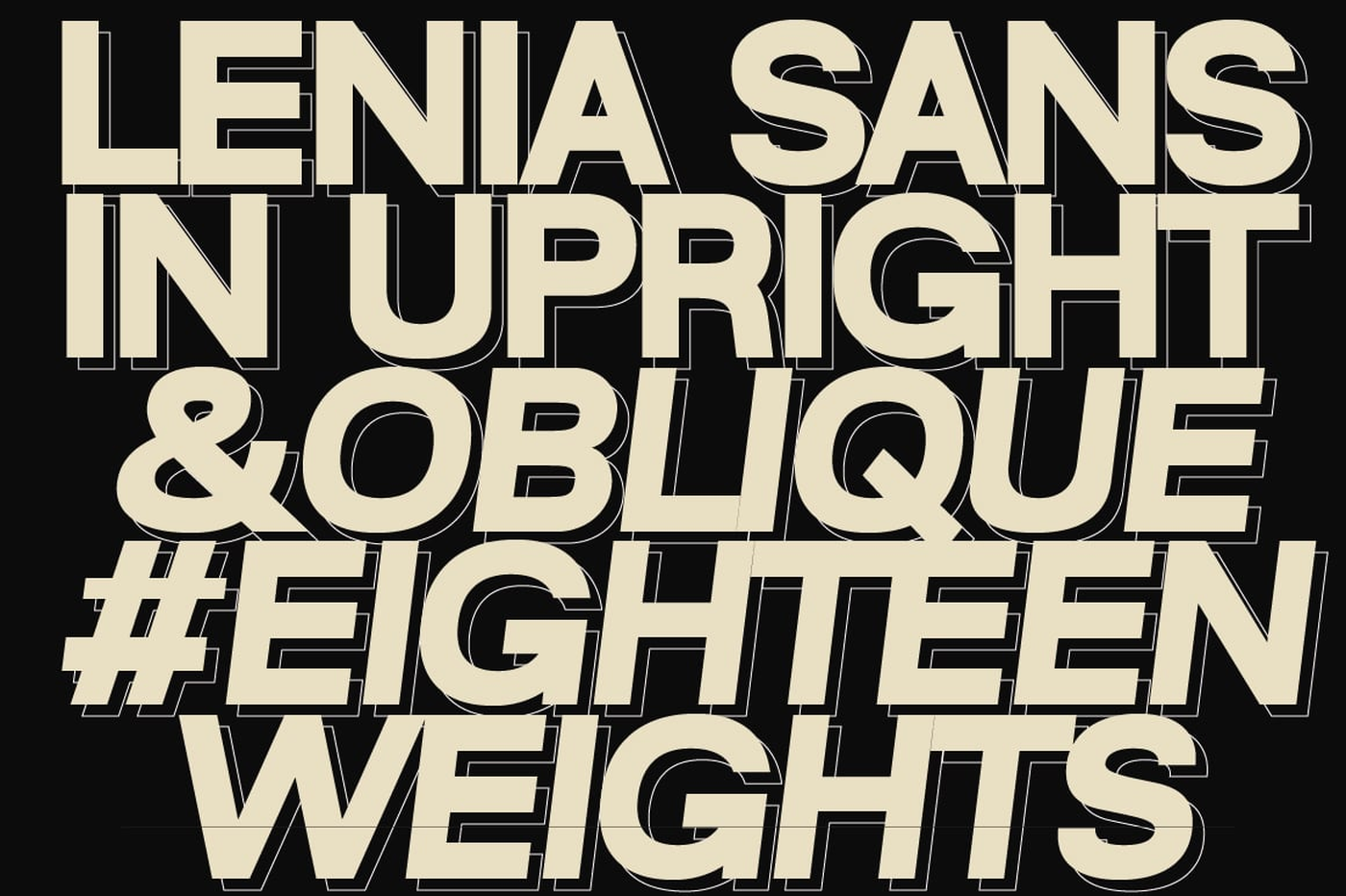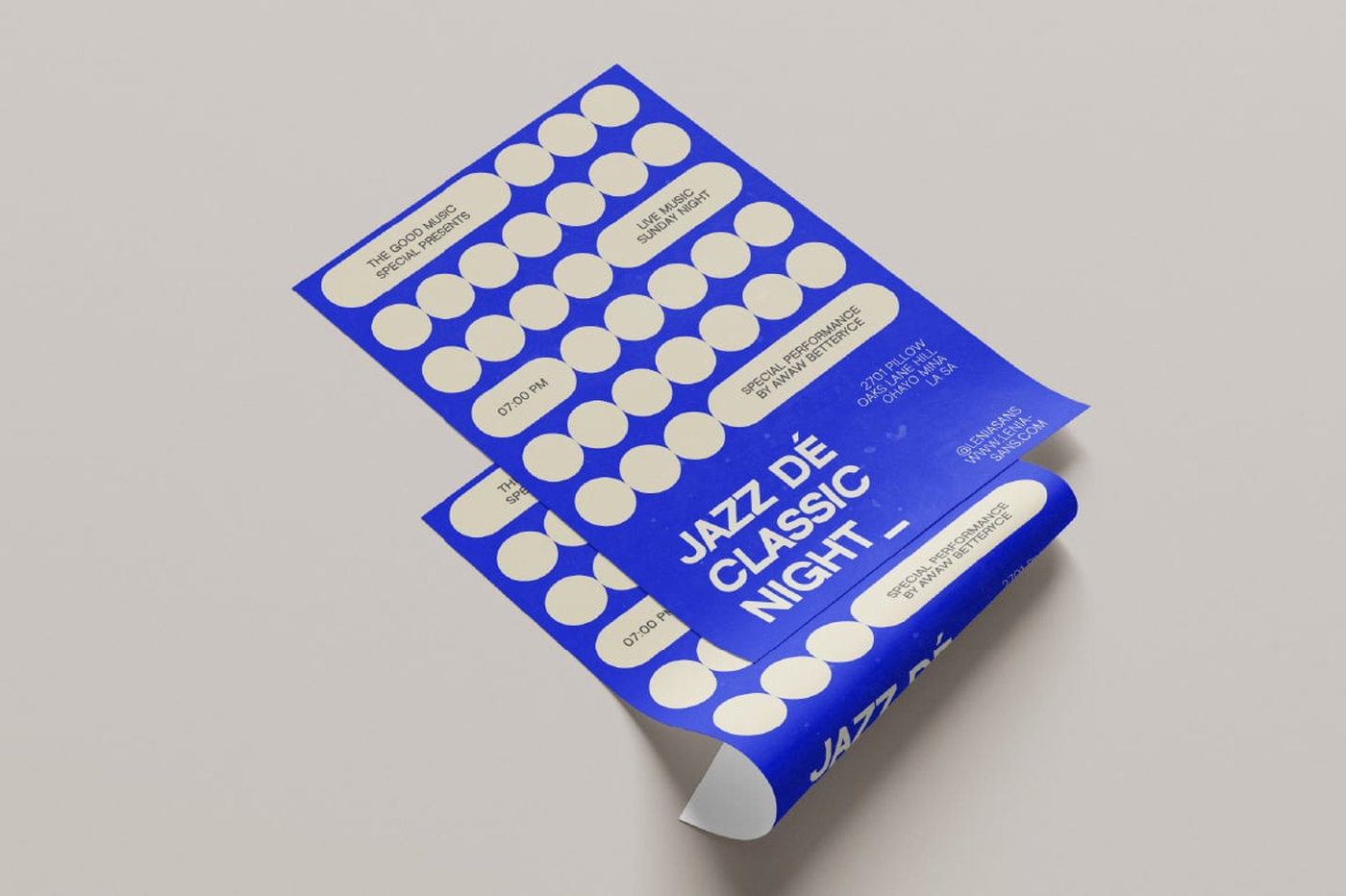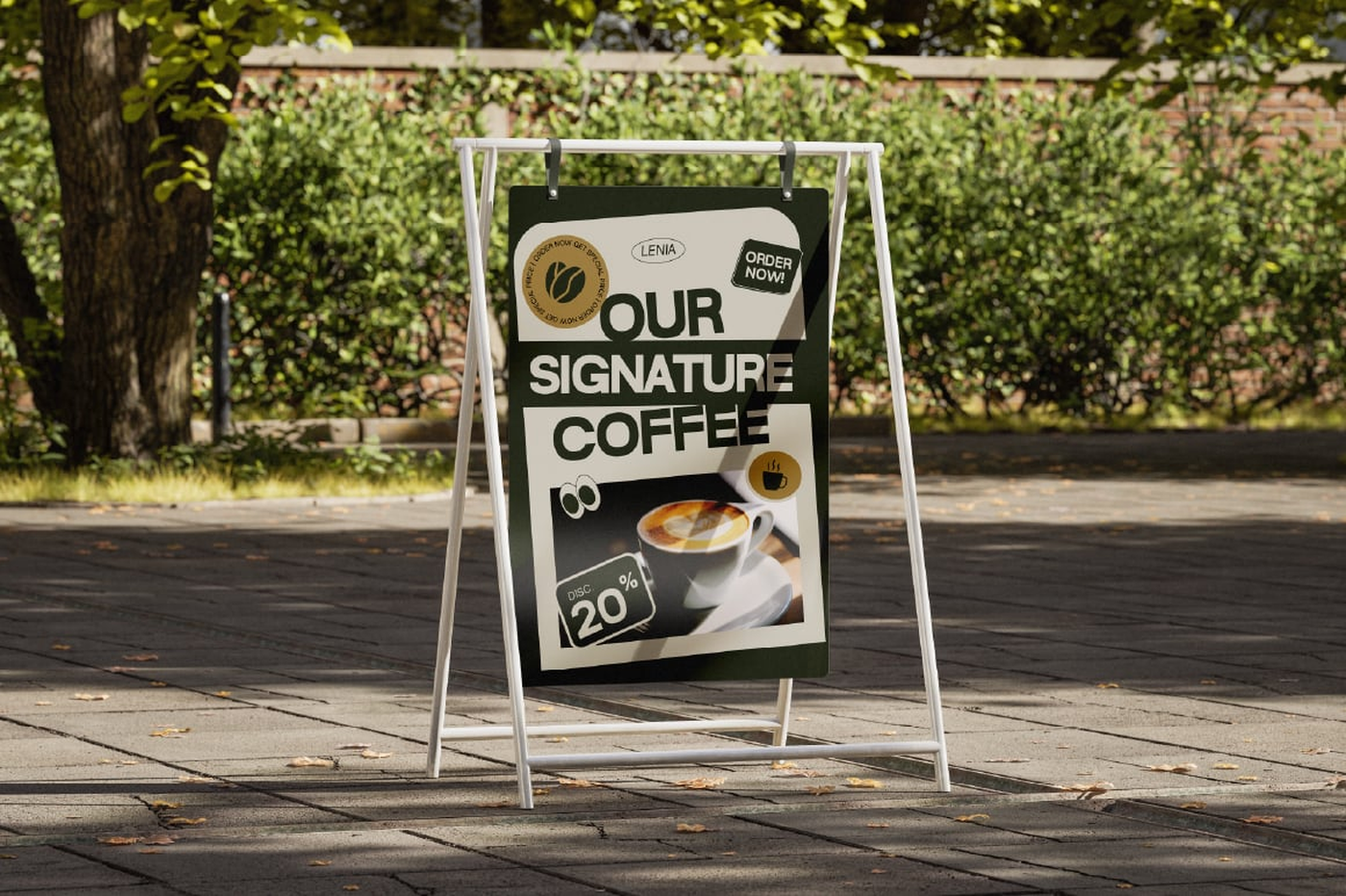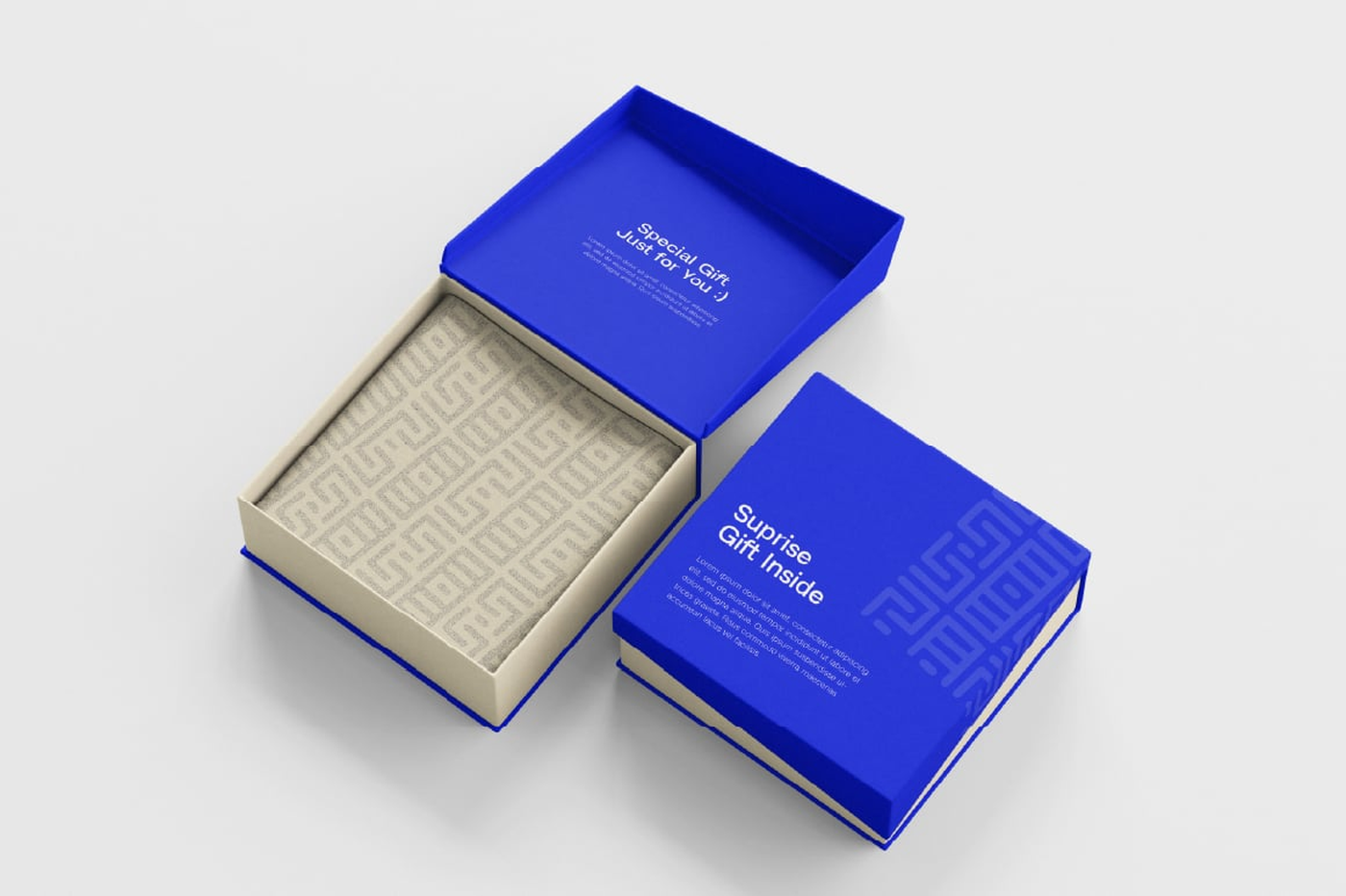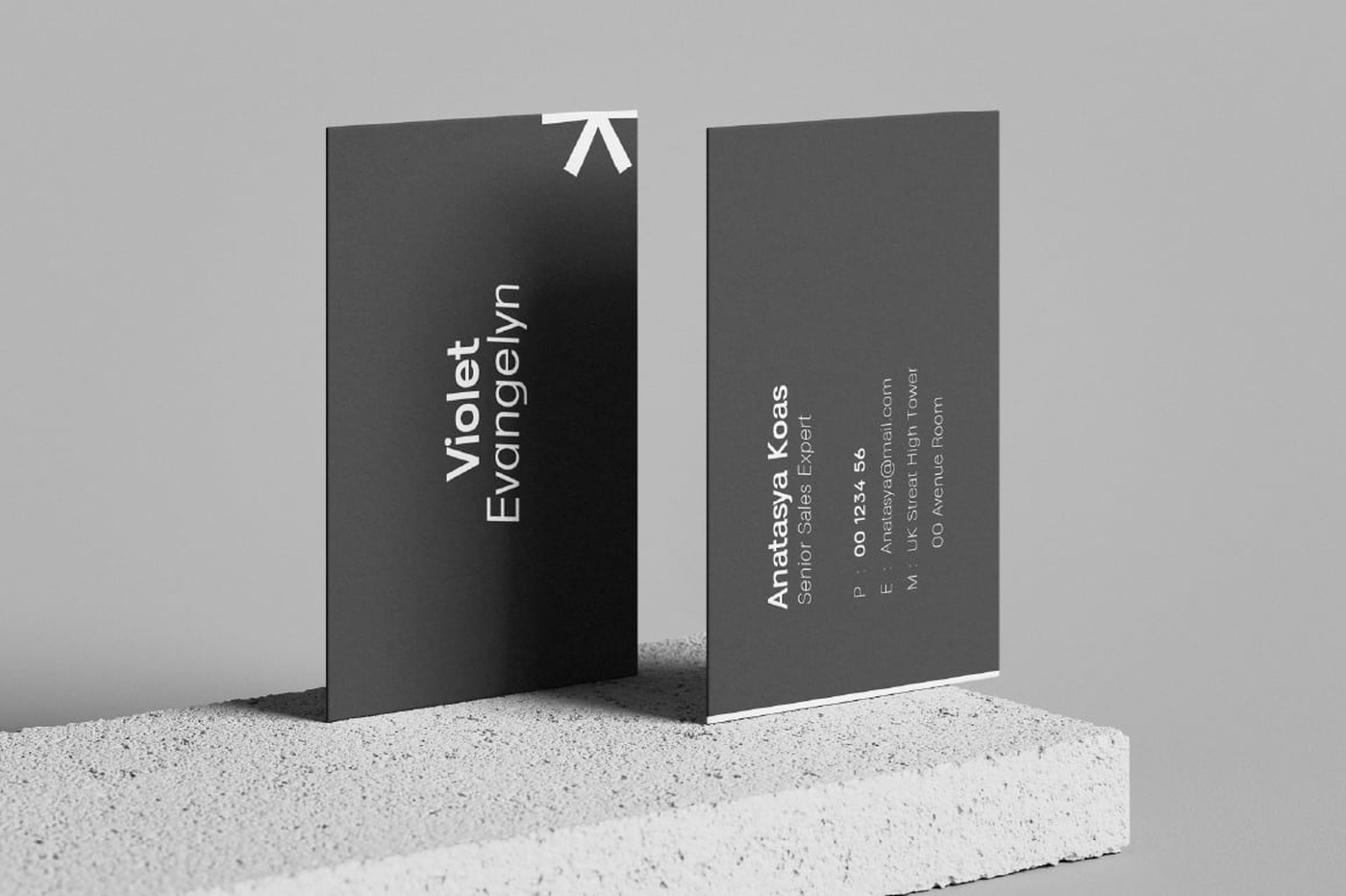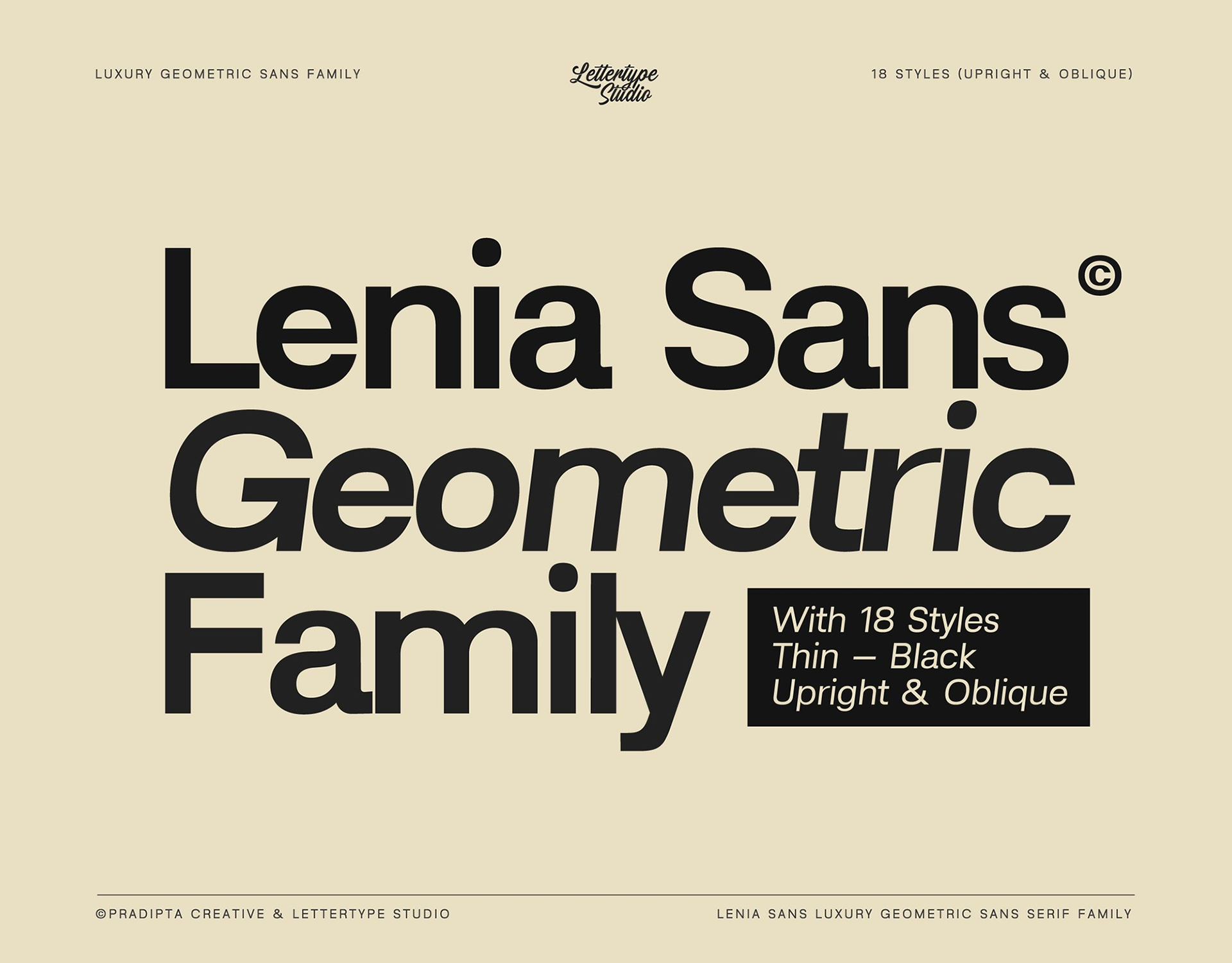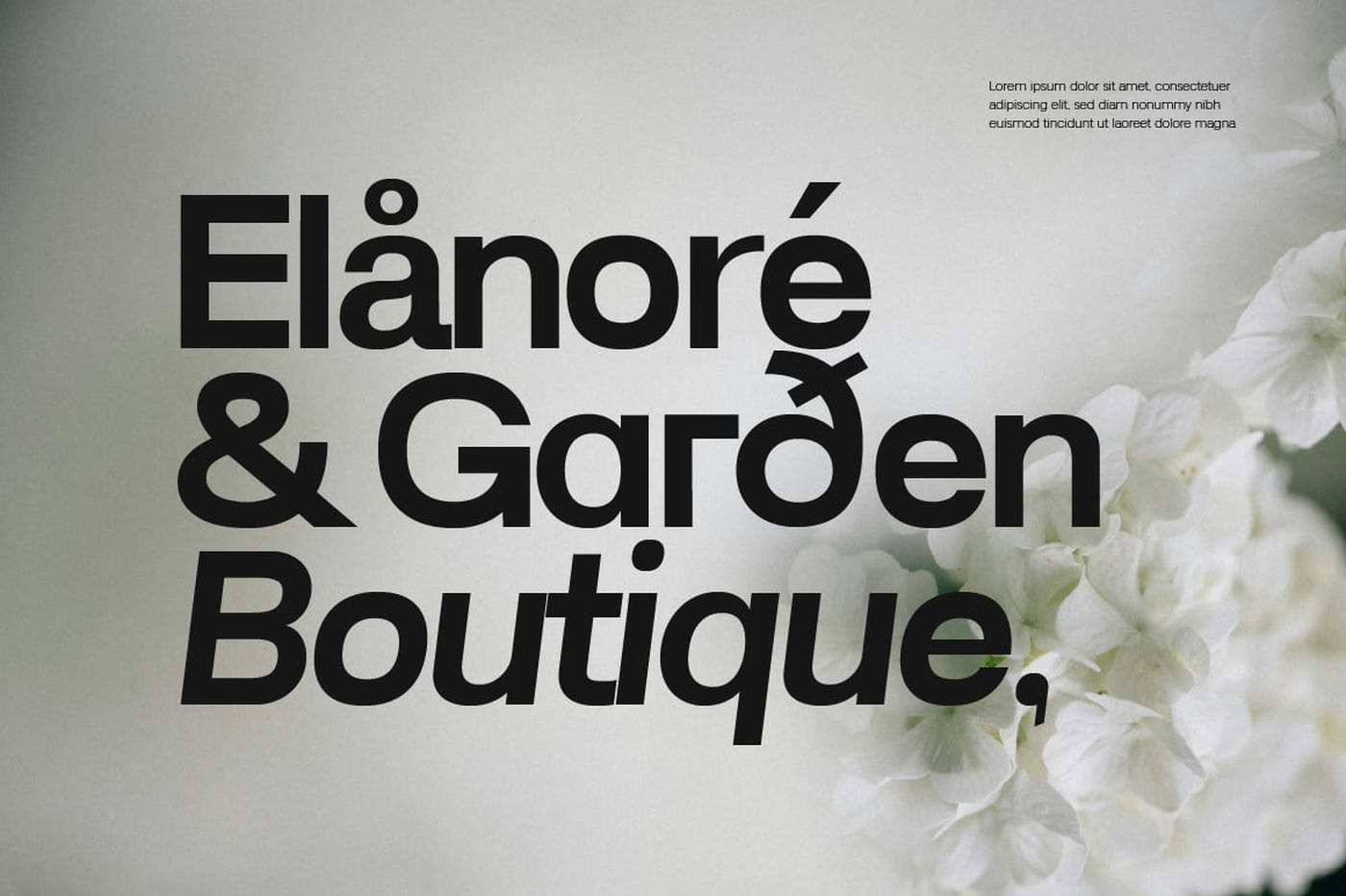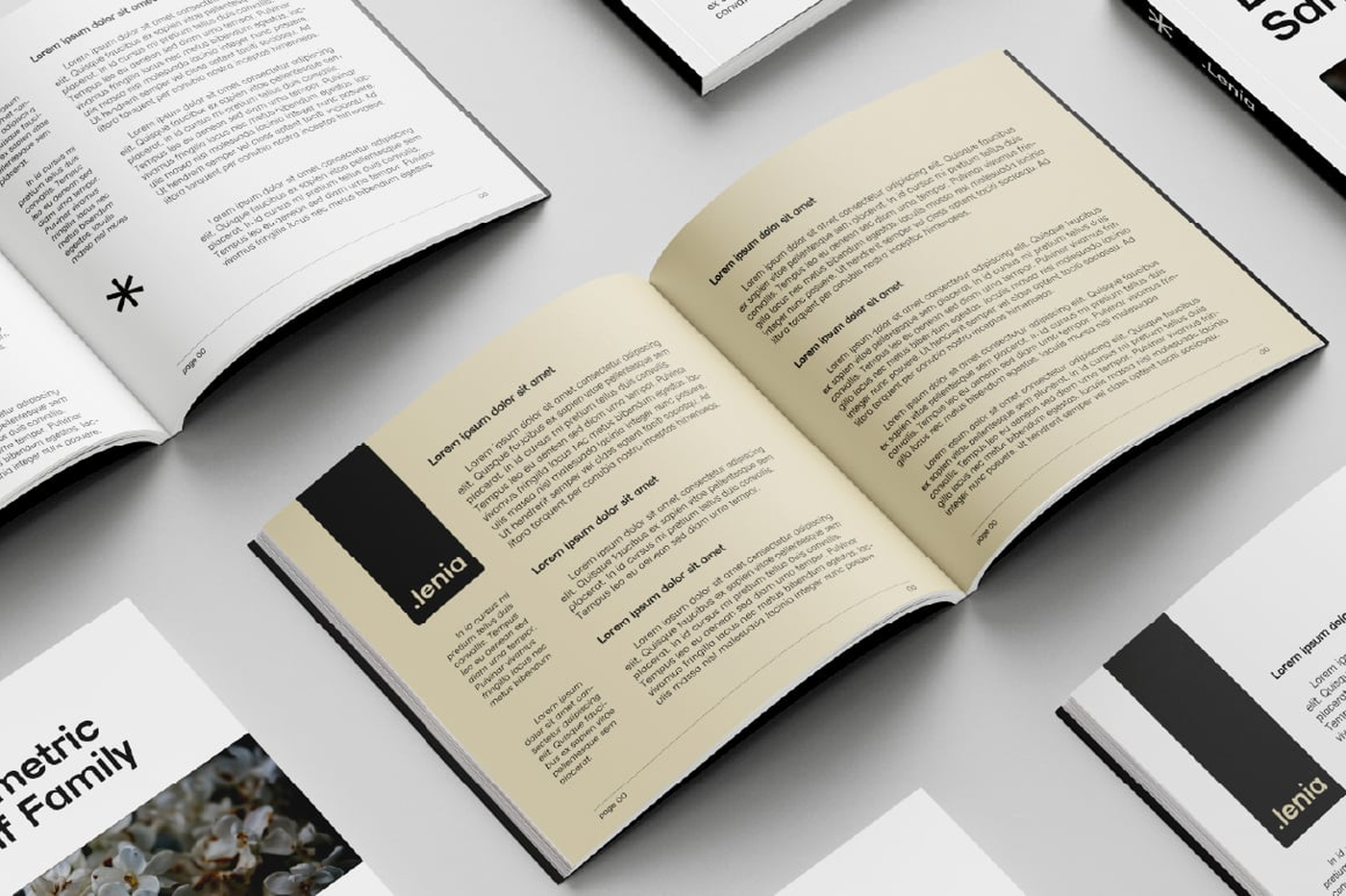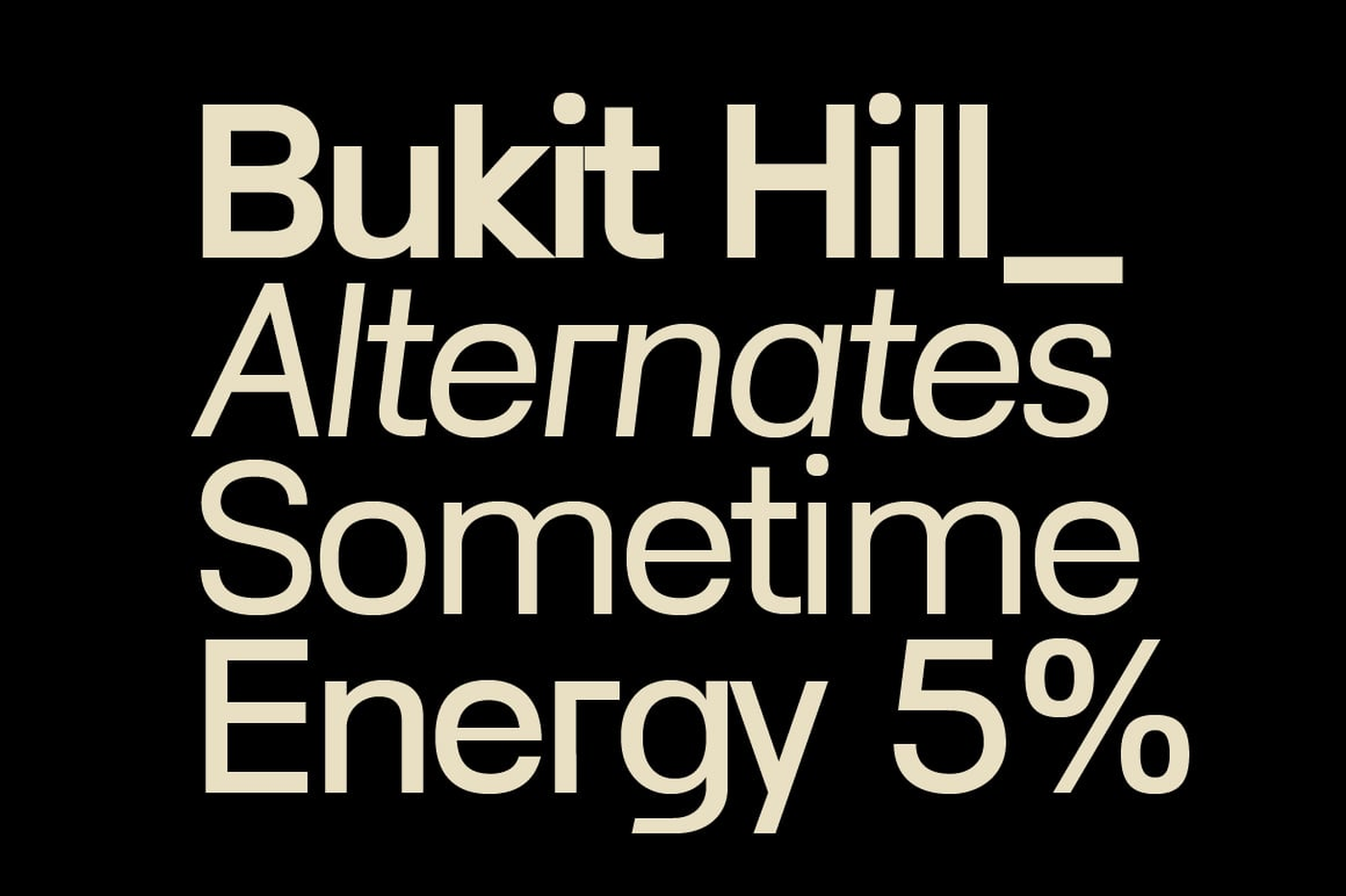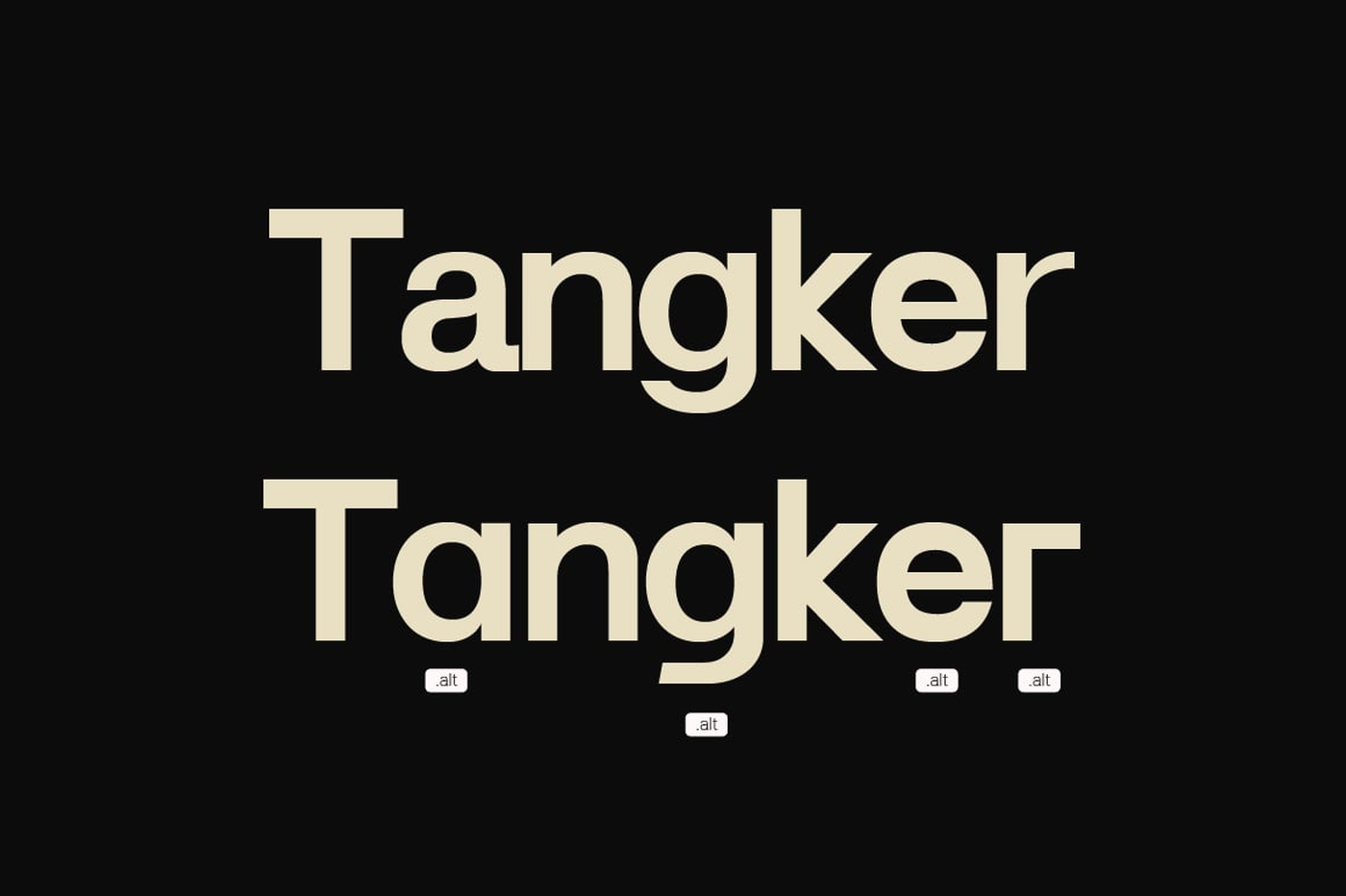
Lenia Sans - Sans Serif Font Family
Lenia Sans is a modern and versatile sans-serif geometric typeface that delivers clean lines and timeless appeal, simplicity, and natural while exuding a strong personality with refined proportions. Designed for readability and versatility, this font family balances clean, geometric precision with the warmth and flexibility of modern design. There is a wide range of weights, from thin to black, including 18 weights and oblique style. OpenType features include stylistic alternates (a, r, g, & y), figure variations (superiors, inferiors, fractions, circled numerators, standard ligatures), arrows, and broad Latin language support.